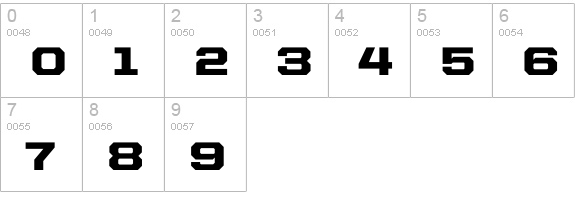
United Sans SemiExt Black Font Details
United Sans SemiExt Black is a maximum-weight, dramatic variant in the United typeface family \xE2\x80\x94 well suited to maximum-impact headlines, posters, and packaging.
United Sans SemiExt Black is a bold and powerful font that demands attention. With its sleek and modern design, this typeface is perfect for creating impactful headlines, eye-catching logos, and striking advertisements. The thick and heavy strokes give it a strong and authoritative presence that conveys confidence and professionalism. This font is ideal for projects that require a bold and impactful appearance. Whether you are designing a poster, a website, or a magazine cover, United Sans SemiExt Black will make your text stand out and leave a lasting impression on your audience. One of the best things about United Sans SemiExt Black is that it is freely available to download at FontsMarket.com. This means that you can easily access this high-quality font without any cost. Whether you are a professional designer or a hobbyist, you can take advantage of this freely available font to enhance your creative projects. Don't miss out on the opportunity to use United Sans SemiExt Black for your next design project. Download it for free at FontsMarket.com and unleash its bold and captivating potential.